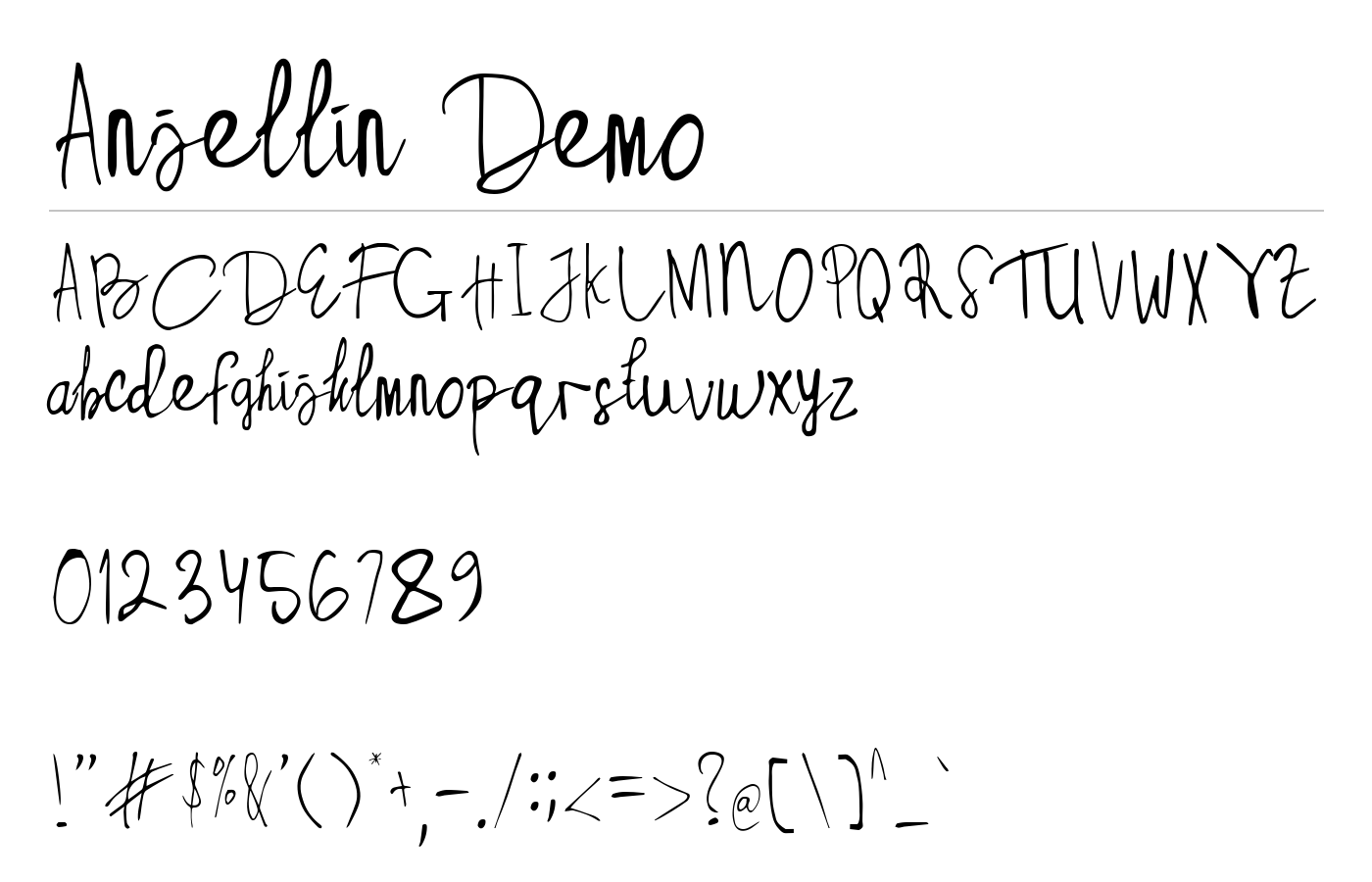
Anjellin Demo is a playful, handwritten script font with a casual and friendly vibe, featuring thin, irregular strokes and a lively, slightly whimsical character. Its tall, narrow letterforms and varied stroke weight give it a personal, informal feel, making it ideal for creative projects, invitations, and branding that seek a unique, approachable touch. This font works best in headlines or short texts where personality and charm are key.
Anjellin Demo Font
About Anjellin Demo Font